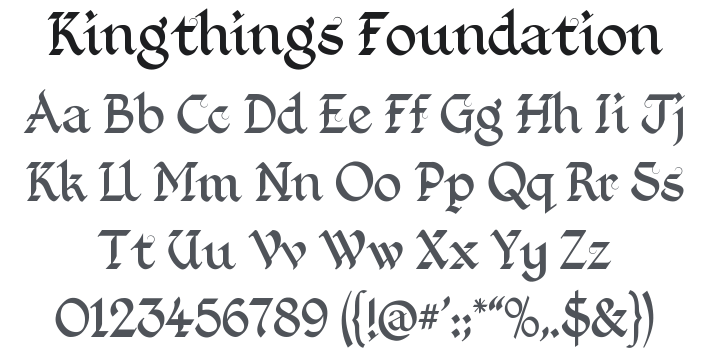
Kingthings Foundation Font
About Kingthings Foundation
Having made so many calligraphic fonts, I realised that I had a 'hole' and couldn't quite put my finger on it... Eventualy I realised that I hadn't finished one of the first fonts I started, a version of the first Alphabet I learned to letter. It's useful for simple lettering like quotes or instructions in boxes written small - it stays quite legible at small sizes... It has taken quite a while - but I think I like it.